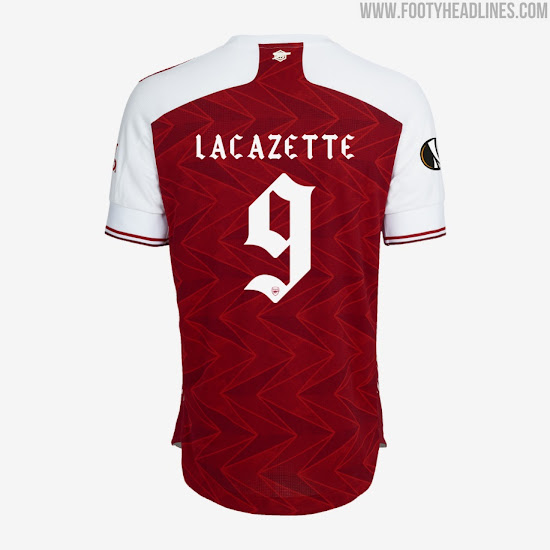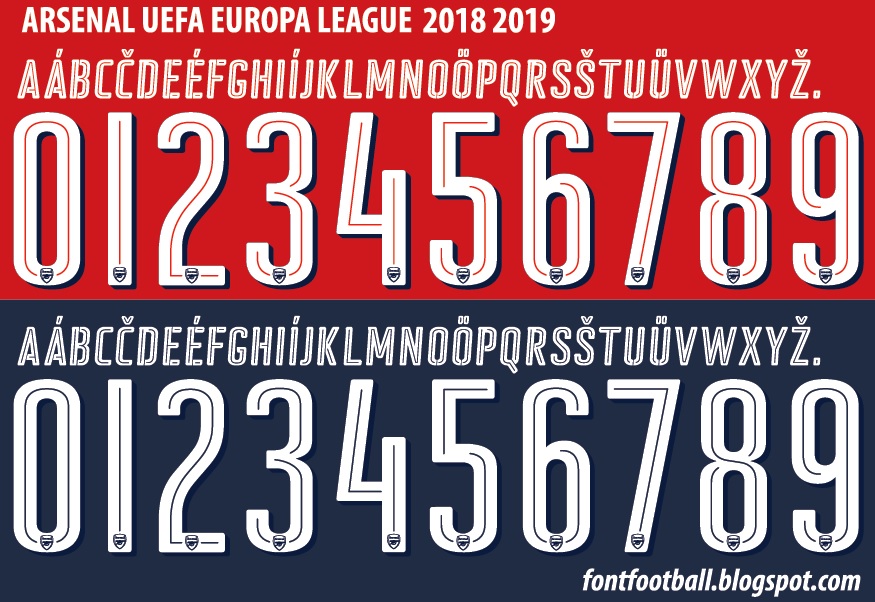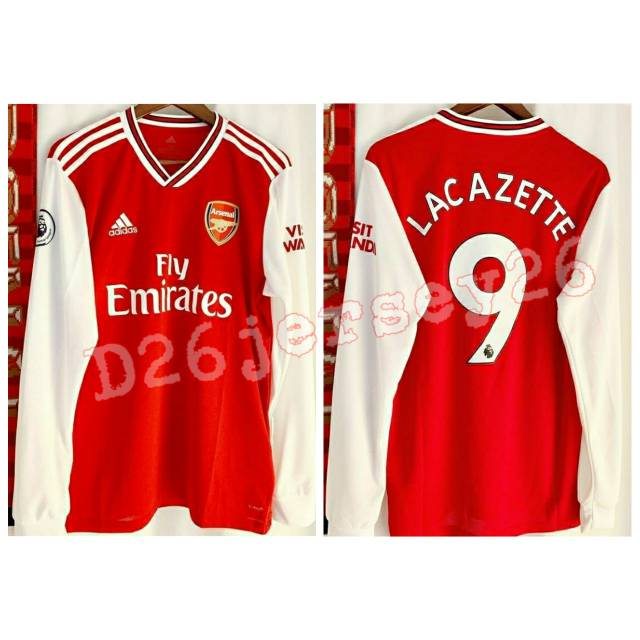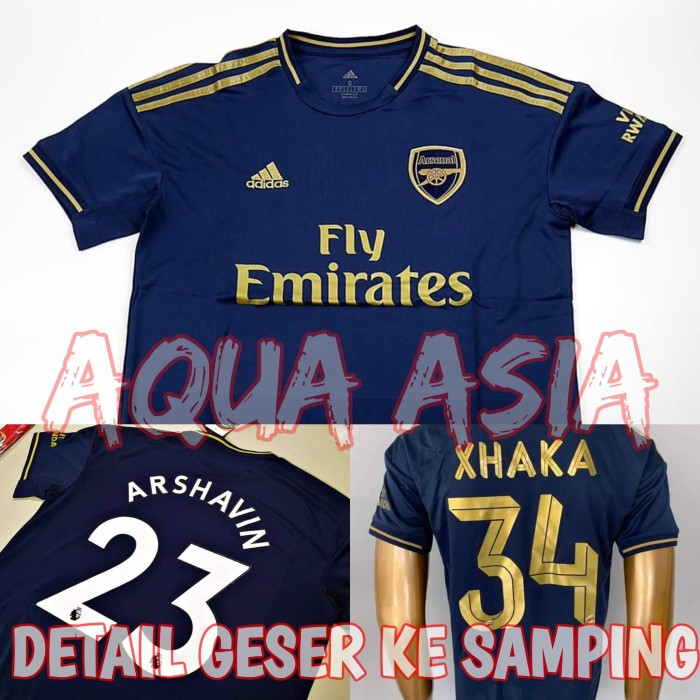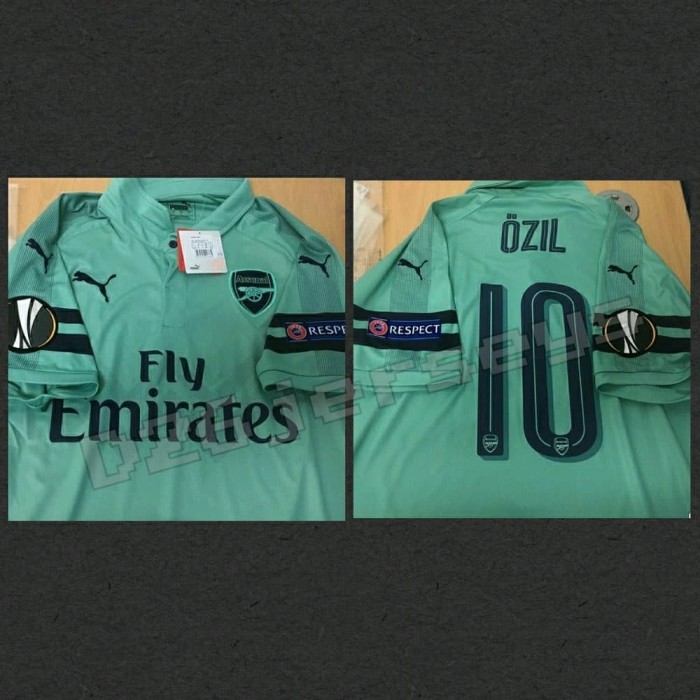
Arsenal Shirt Font 2020
With the current season close to completion fans are starting to look ahead to events in the summer such as the transfer window and new kits produced by adidas for mikel artetas first full campaign in charge.
Arsenal shirt font 2020. 9 aug 2020. Arsenal shared the snap to show the heads. The importance of the match therefore cannot be overestimated and arsenal will have a new look for the match as they wear their recently revealed home shirt of the 202021 season. Adidas kit will also have another difference for the match as arsenal have shown pictures of the retro style they will use on the back of the players shirts.
The font will be worn during their 2019 2020 season in their cup competitions uefa europa league fa cup league cup. This is the arsenal 20192020 font set for their football shirt by adidas. Roy keane warns there are big question marks over three arsenal players september 29 2020 812. Arsenals new home kit for the 202021 season appears to have been spotted for sale ahead of its official release.
Absolute disgrace arsenal fans up in arms about the font on cup final shirts. Arsenal 2020 21 football font free download by m qasim ali arsenal font for copa america 2020 21 ttfotf new arsenal 2020 kit copa america 2020 2.